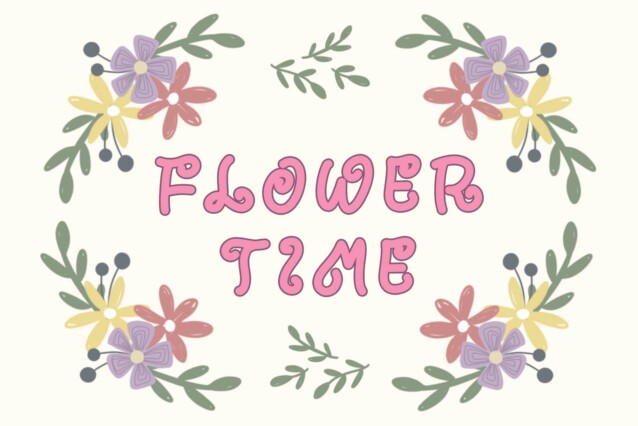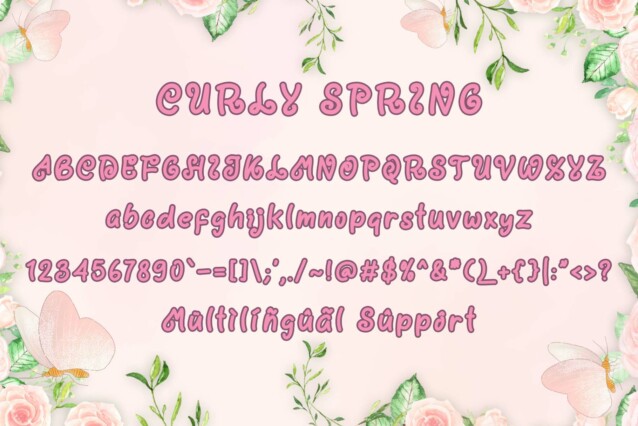
Curly Spring Display Font
Curly Spring Display Font is a unique and cute curly display font. This font is equipped with uppercase, lowercase, numerals, punctuation, and multilingual support. Very suitable for summer, spring, holidays, cartoons, comics, Easter, invitations, kids, animation, animals, and others.